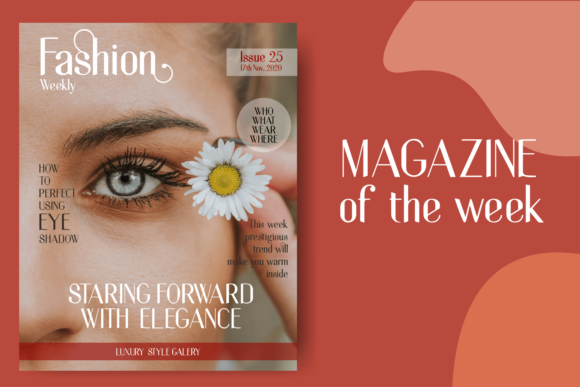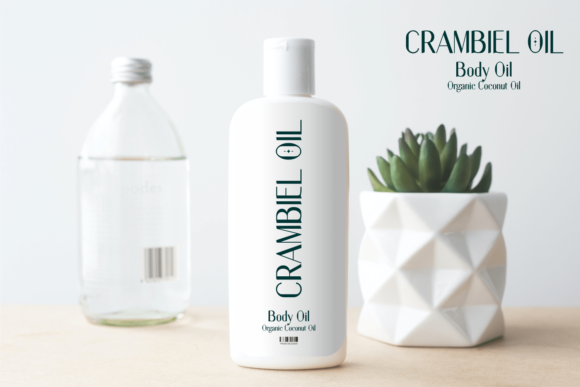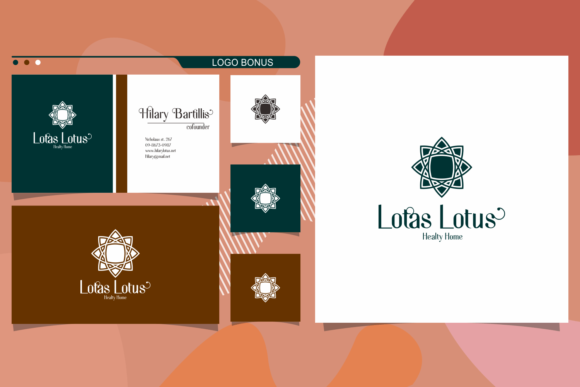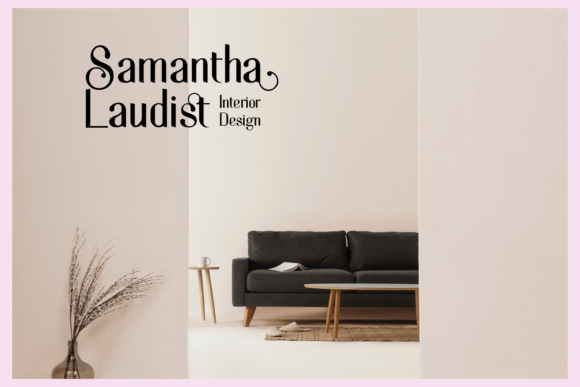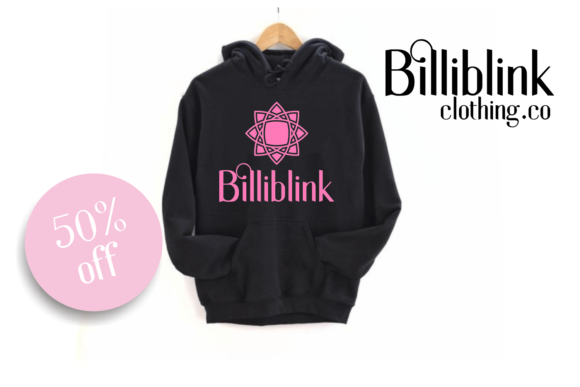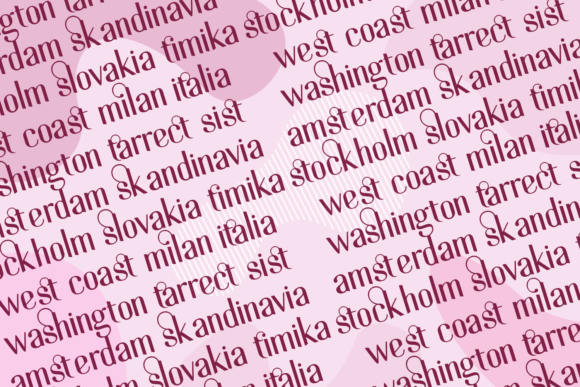
Have you ever been in the middle of a design project, staring at a blank page, and suddenly the perfect font pops into your mind? That’s exactly what happened to us when we discovered the Bentalista Font. Its elegant and modern sans serif design is simply captivating.
Bentalista Font is more than just a pretty face – it’s a versatile tool that can elevate any design project. Whether you’re working on a formal corporate identity or an informal social media campaign, this font is sure to impress. Its clean lines and delicate curves make it the ideal choice for designers looking to add a touch of sophistication to their work.
With Bentalista Font, you can create stunning designs that truly stand out. Its value lies in its ability to adapt to any style or theme, making it a must-have for designers of all levels.
Bentalista Font Key Features
• Font Family: Bentalista is a sans-serif font family with a modern and clean design.
• Unique Characteristics: Bentalista features a unique blend of geometric and organic shapes, giving it a distinctive look that is both modern and timeless.
• Language Support: Supports a wide range of languages, including Latin, Cyrillic, Greek, and many others.
Bentalista Font Review
Overall, I found the Bentalista font to be a nice addition to any design project. It’s a unique, modern script font that can add a touch of elegance to your work. ✨ I particularly enjoyed using it for headings and titles, as it adds a sense of sophistication and refinement.
Here are some of the things that work well with the Bentalista font:
• ✨ Unique and modern design
• ✨ Elegant and refined feel
• ✨ Great for headings and titles
• ✨ Wide range of language support
However, I did encounter some limitations while using the font:
• ⚠️ Limited font sizes, may not be suitable for very small or very large text
• ⚠️ May not be as readable in certain font sizes or contexts
• ⚠️ Some characters may not be available or may be substituted with similar characters
Overall, I would recommend the Bentalista font for designers who are looking for a unique and modern script font. While it may have some limitations, it can be a great addition to your design toolbox.
Getting the Most Out of Bentalista Font
Here are some tips to help you get the most out of the Bentalista font:
• Experiment with different font sizes and colors to create visually appealing effects.
• Combine Bentalista font with other fonts to create a unique and stylish look.
• Use Bentalista font for headings and titles to create a clear visual hierarchy.
The Bentalista font is ideal for:
• Creating eye-catching headings and
Alternatives to Bentalista Font
Compared to Bentalista Font, Montserrat has a more geometric and urban feel, while Bentalista Font has a more rounded and elegant appearance.
Open Sans is more neutral and versatile compared to Bentalista Font, which has a more distinctive and ornate style.